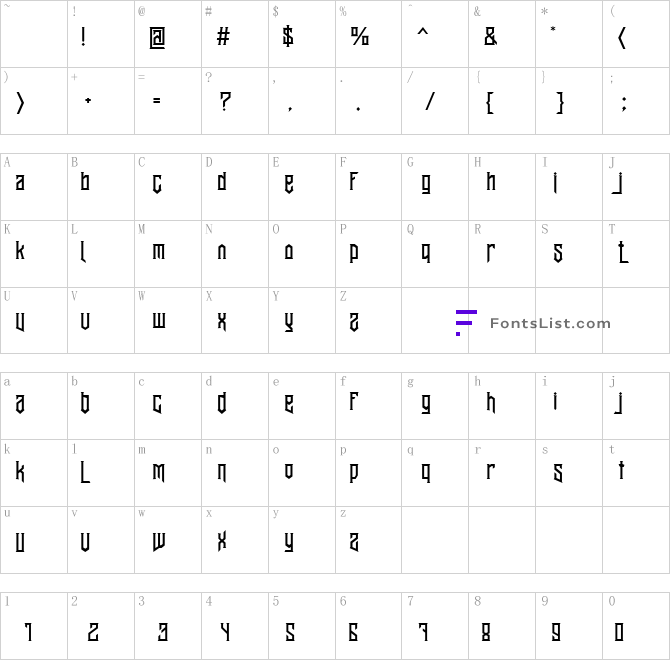
- Font Name:Banten Unfamous 2 Lowcase Alt
BantenUnfamous2LowcaseAlt.ttf is a very beautiful artistic font, BantenUnfamous2LowcaseAlt.ttf is widely used in the design and printing of various books and pictures,BantenUnfamous2LowcaseAlt.ttf has a strong visual impact,BantenUnfamous2LowcaseAlt.ttf is a commonly used font in newspapers, magazines and books, and is used in posters, e-commerce Poster design, store design, logo design, font design and other fields.BantenUnfamous2LowcaseAlt.